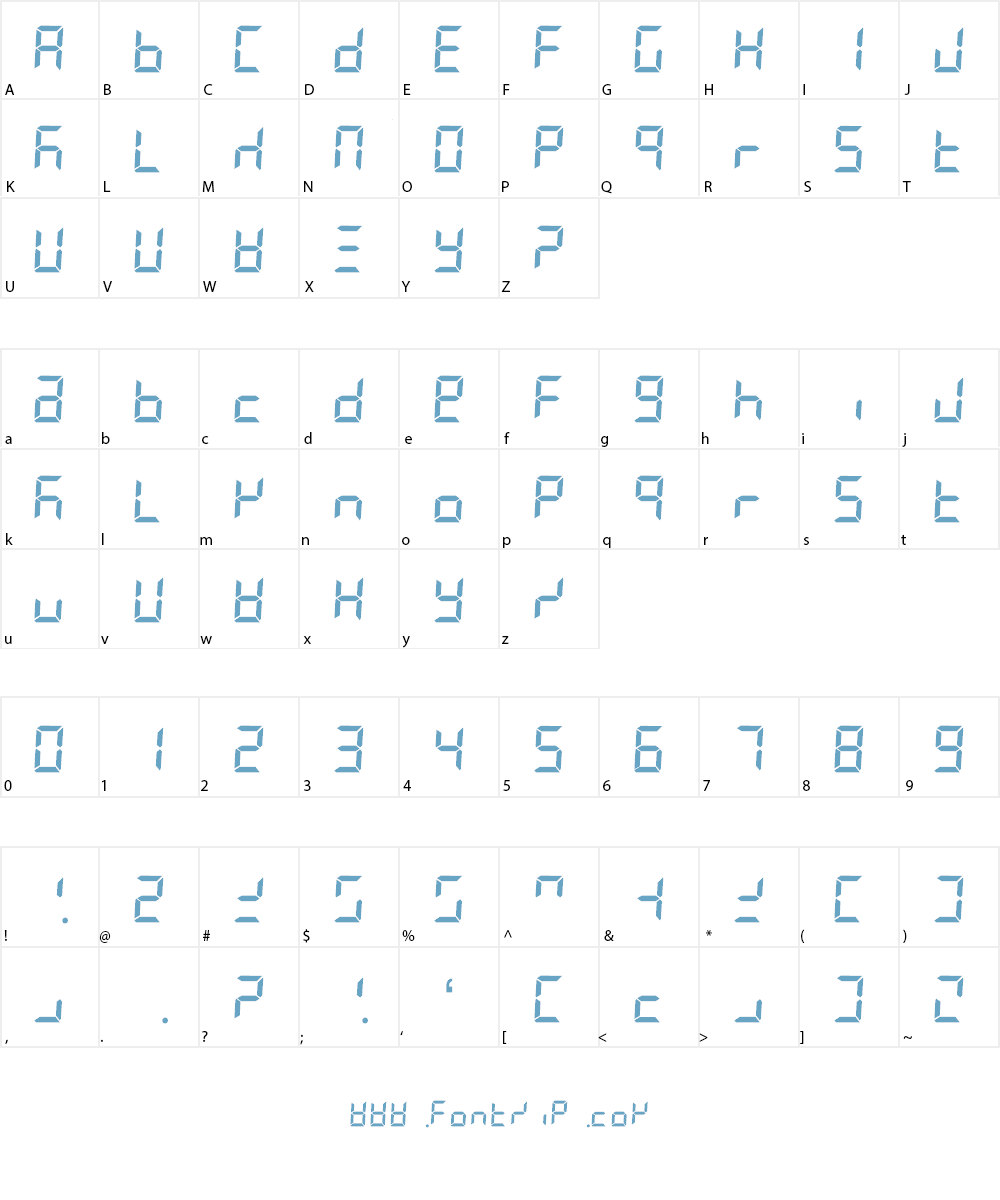
Strictly seven-segment (plus point) calculator display face, fixed-width and free. Other LED/LCD digital fonts may kern or include paths that are not available with seven segments in order to represent characters better. Segment7 does the best it can for upper- and lower-case Latin without compromising on the true LCD display appearance. I intended it for power meter display on a website, so the point has no width after a number.